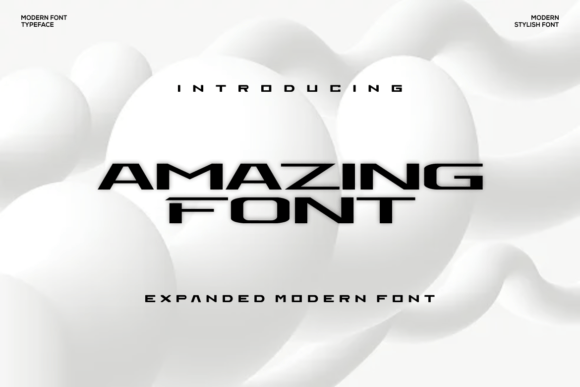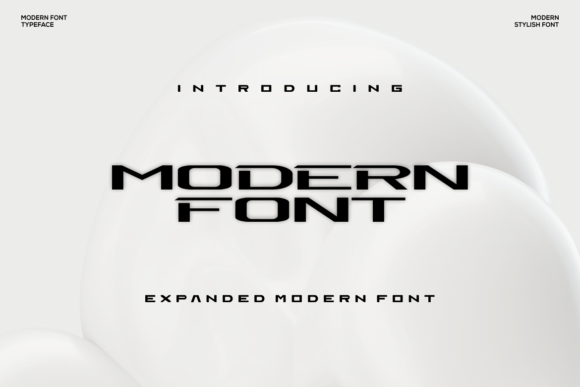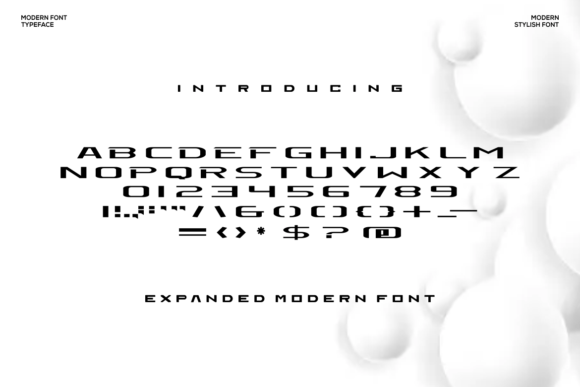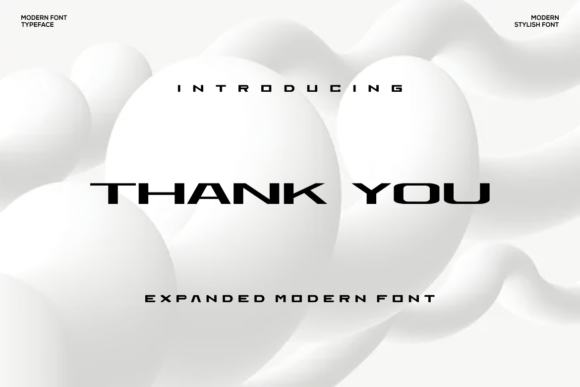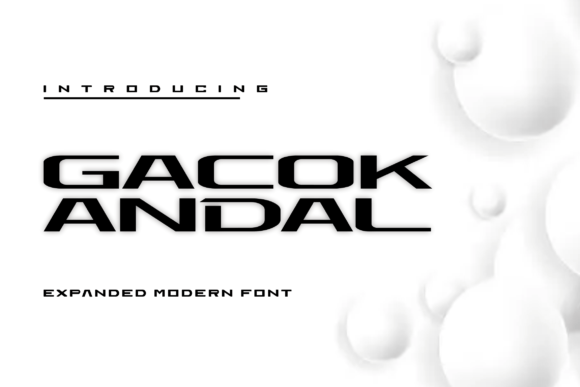
Introducing Gacok Font: The Modern Display Font for Bold Designs
Are you tired of using the same old fonts for your branding projects? Look no further! We’re excited to introduce Gacok Font, a modern display font that’s perfect for creating bold and authentic designs. In this article, we’ll take a closer look at what makes Gacok Font special and how it can elevate your branding projects.
What is Gacok Font?
Gacok Font is a bold and authentic display font designed to make a statement. Its unique and modern style makes it perfect for a variety of applications, from logos and t-shirt printing to creative products and more. Whether you’re a designer, craftsperson, or entrepreneur, Gacok Font is an excellent choice for anyone looking to add a touch of personality to their brand.
Key Features of Gacok Font
So, what sets Gacok Font apart from other fonts? Here are some of its key features:
- Bold and Authentic Style: Gacok Font has a bold and authentic style that’s perfect for making a statement.
- Modern Design: Its modern design ensures that your branding projects look fresh and up-to-date.
- Versatile: Gacok Font is versatile and can be used in a variety of contexts, from logos and t-shirt printing to creative products and more.
- Easy to Read: Despite its bold style, Gacok Font is easy to read, making it perfect for use in a variety of applications.
Gacok Font is perfect for designers and crafters who want to add a touch of personality to their projects. Whether you’re creating logos, t-shirts, or other creative products, Gacok Font is an excellent choice. Its bold and authentic style ensures that your designs stand out from the crowd, while its versatility makes it easy to use in a variety of contexts.
- Logos: Use Gacok Font to create bold and authentic logos that make a statement.
- T-Shirt Printing: Gacok Font is perfect for t-shirt printing. Its bold style ensures that your designs stand out.
- Creative Products: Use Gacok Font to create unique and eye-catching designs for creative products, such as mugs, phone cases, and more.
Why Choose Gacok Font?
So, why choose Gacok Font over other fonts? Here are some reasons:
- Unique Style: Gacok Font has a unique and modern style that’s perfect for making a statement.
- High-Quality: Gacok Font is a high-quality font that’s designed to produce crisp and clear results.
In conclusion, Gacok Font is a modern display font that’s perfect for creating bold and authentic designs. Its unique and modern style makes it perfect for a variety of applications, from logos and t-shirt printing to creative products and more. With its versatility, ease of use, and affordability, Gacok Font is an excellent choice for designers and crafters who want to add a touch of personality to their projects. So why wait? Download Gacok Font today and start creating stunning designs that make a statement!